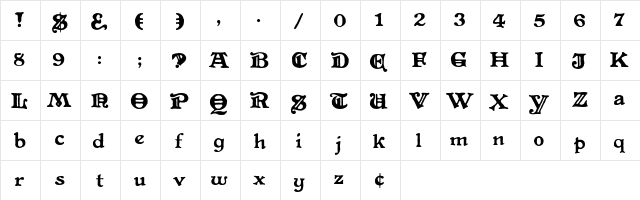
LevelFourteenDruid Regular
Design Context for LevelFourteenDruid Typeface
LevelFourteenDruid is a composed and adaptable typeface that performs quietly and consistently across a wide range of design contexts.